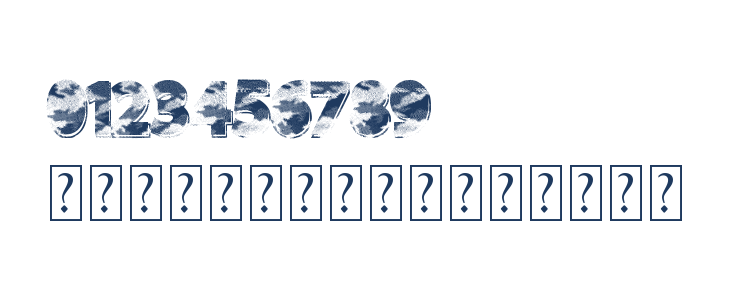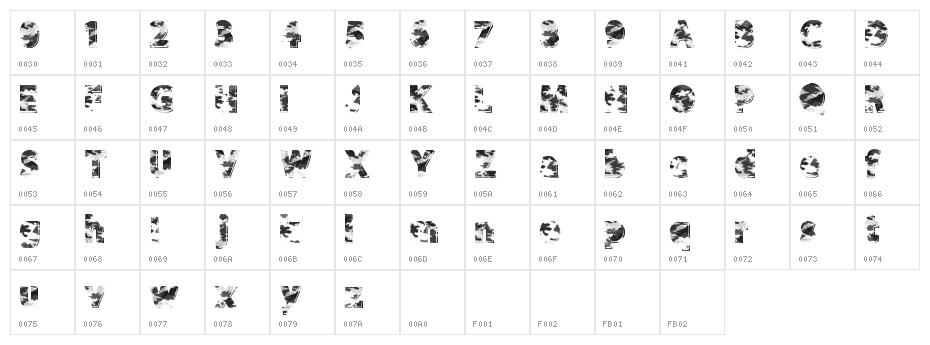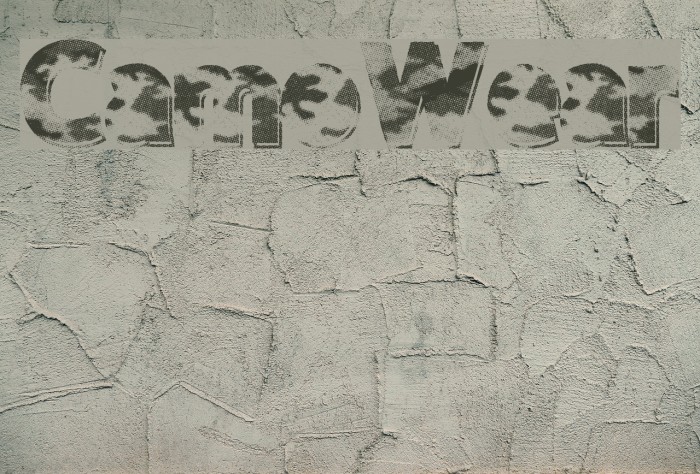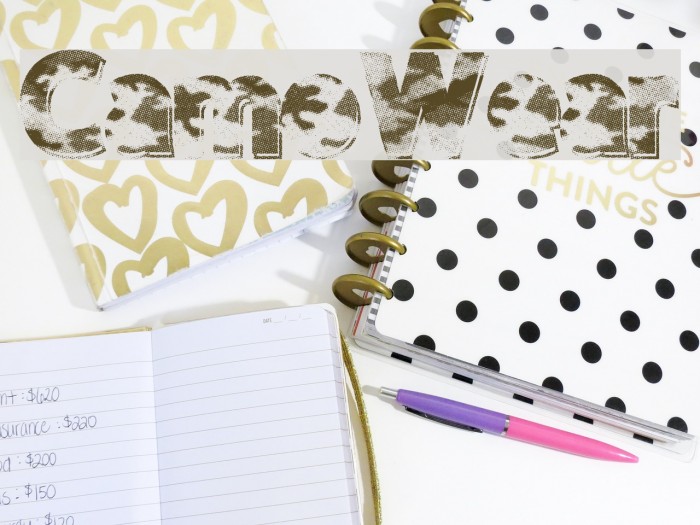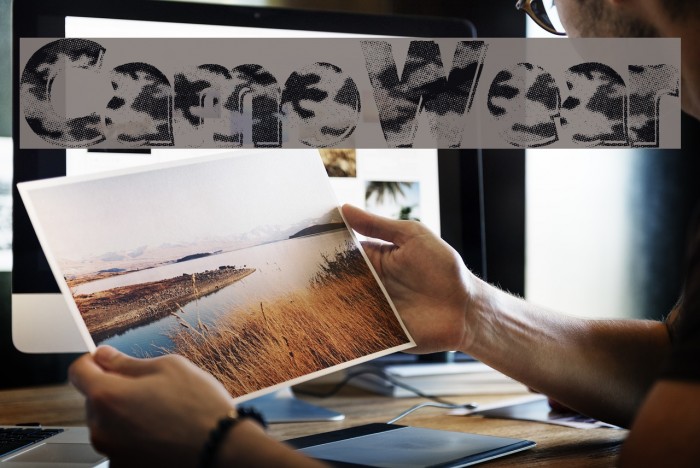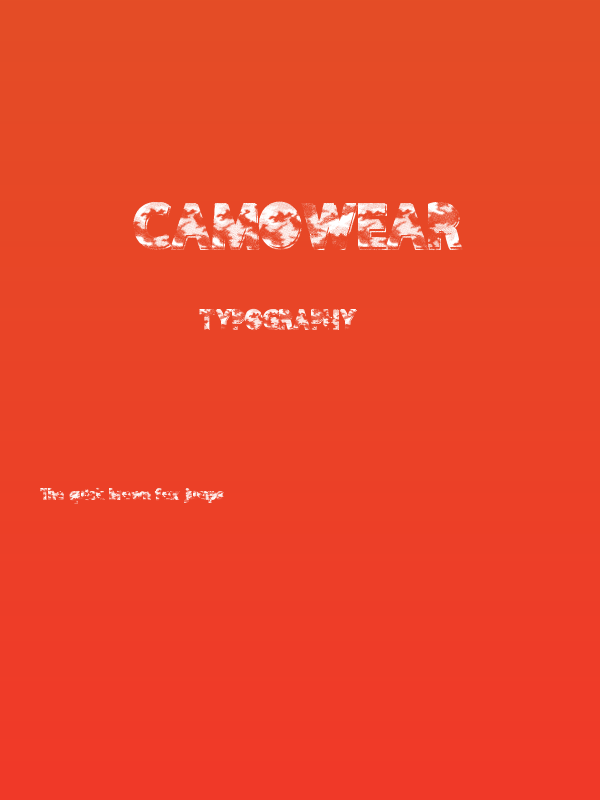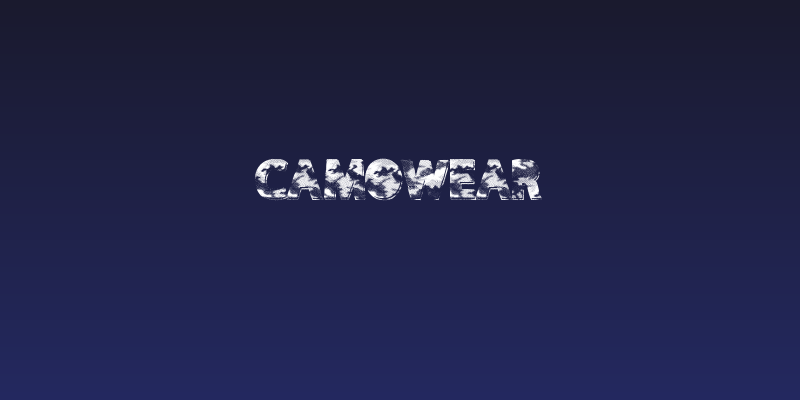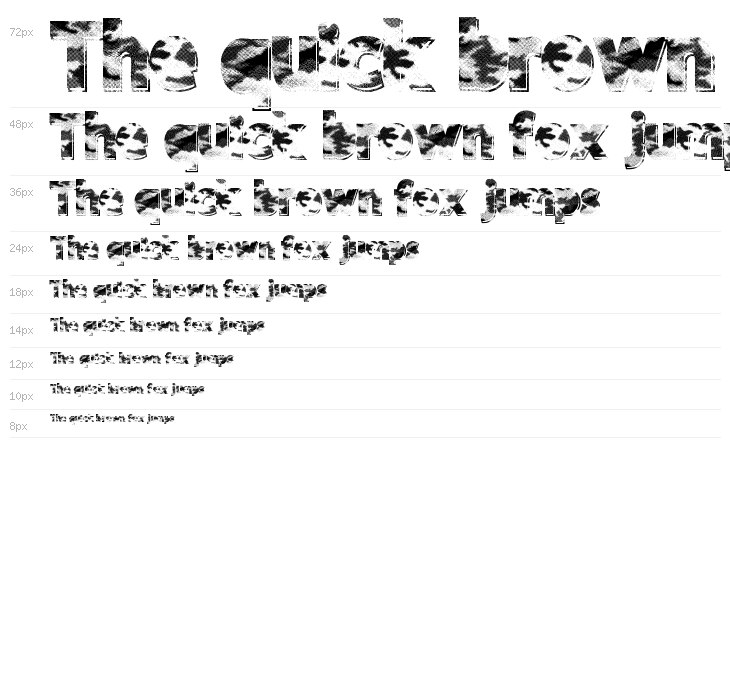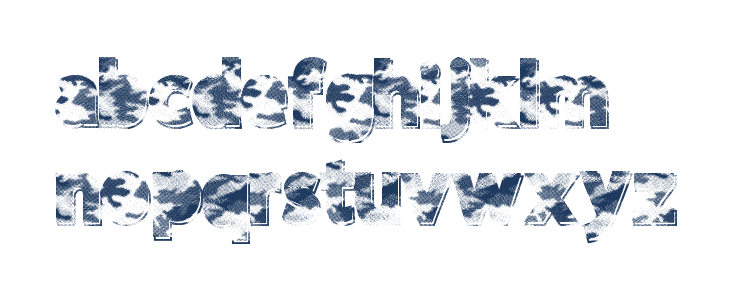
CamoWear Font
CamoWear Description
This font features a bold, camouflage pattern that is integrated into each character, creating a distinctive and rugged appearance. The uppercase and lowercase letters, as well as numbers, are designed with a consistent camouflage texture that gives the font a unique, adventurous feel. The characters are bold and impactful, making them stand out in any design. The font's style is reminiscent of military or outdoor themes, making it suitable for projects that require a strong, nature-inspired aesthetic. The camouflage pattern is evenly distributed across all characters, ensuring a cohesive look throughout the text.
| Proposed Projects | Ideal for outdoor-themed branding, military-style posters, adventure sports promotions, and nature-inspired merchandise. |